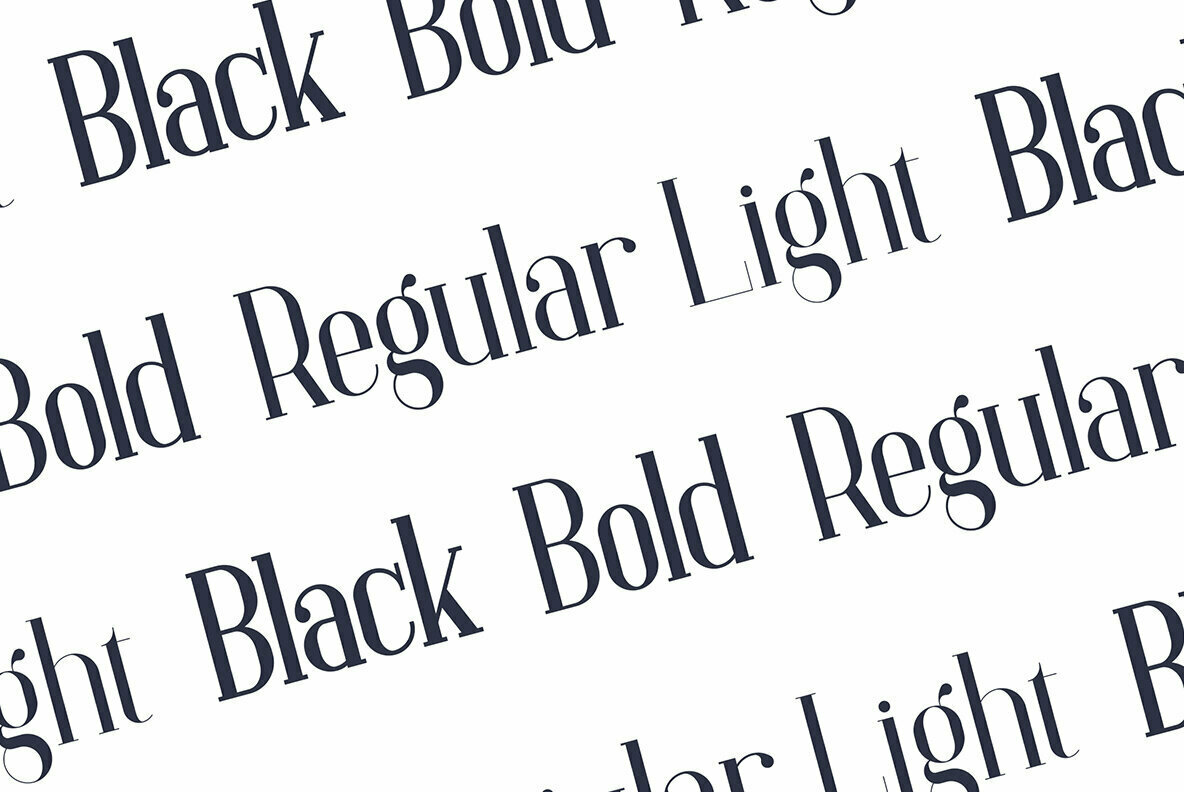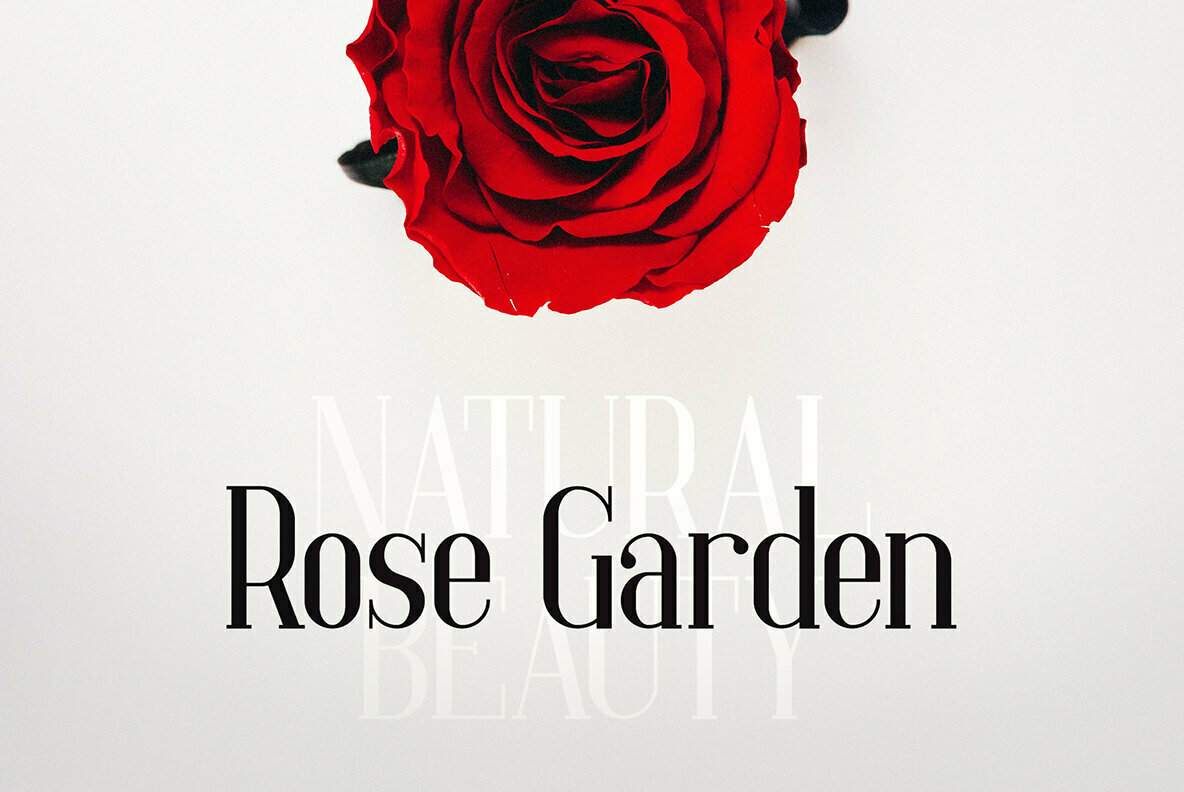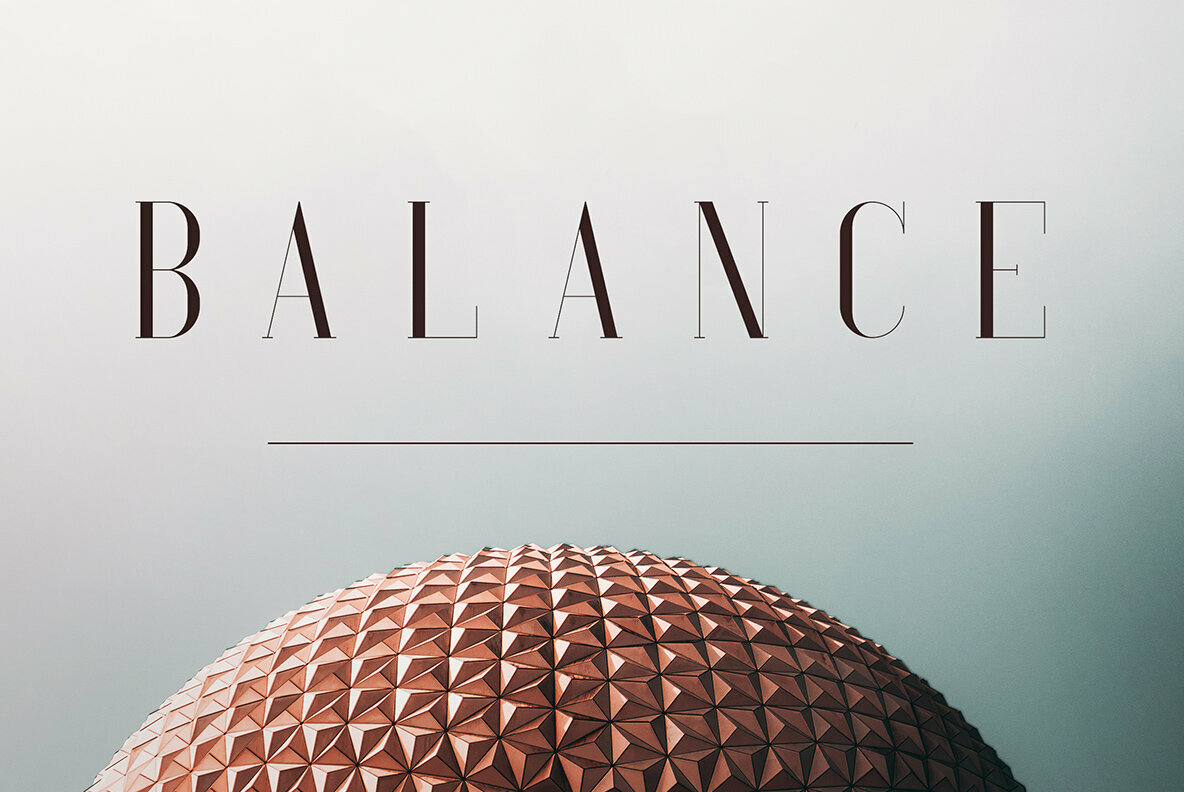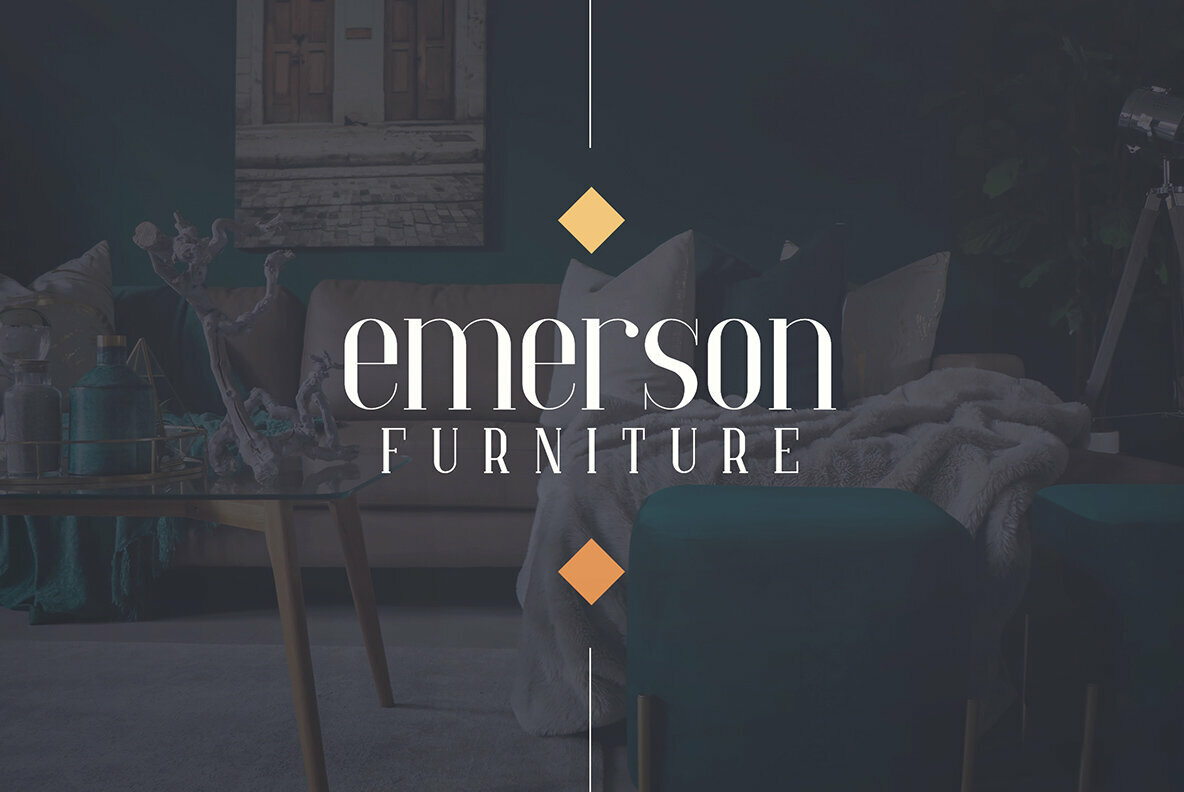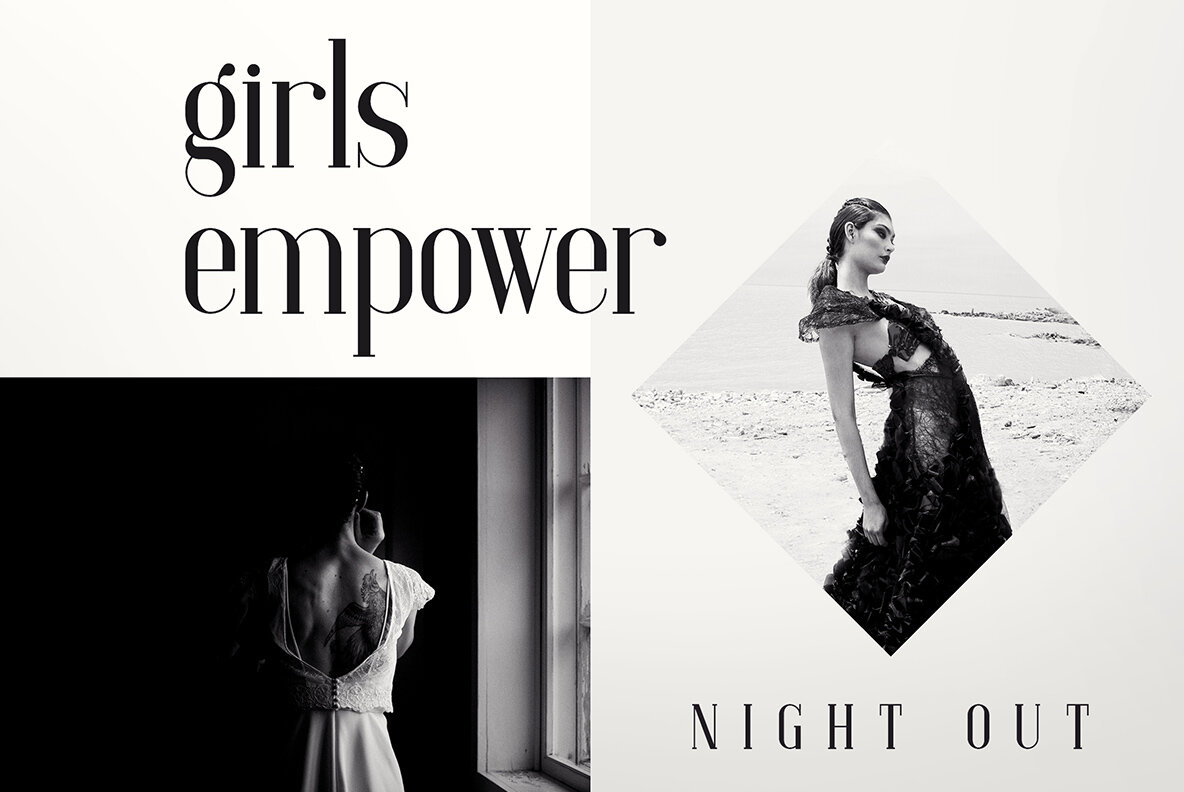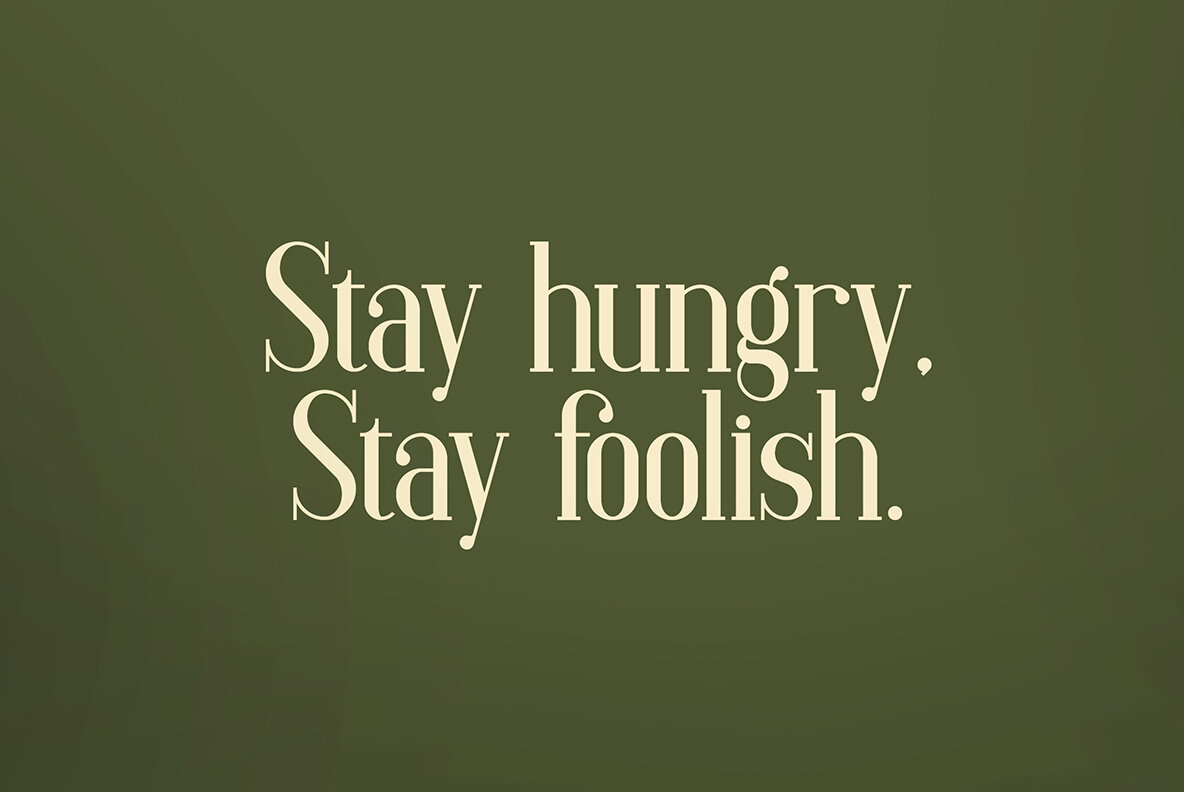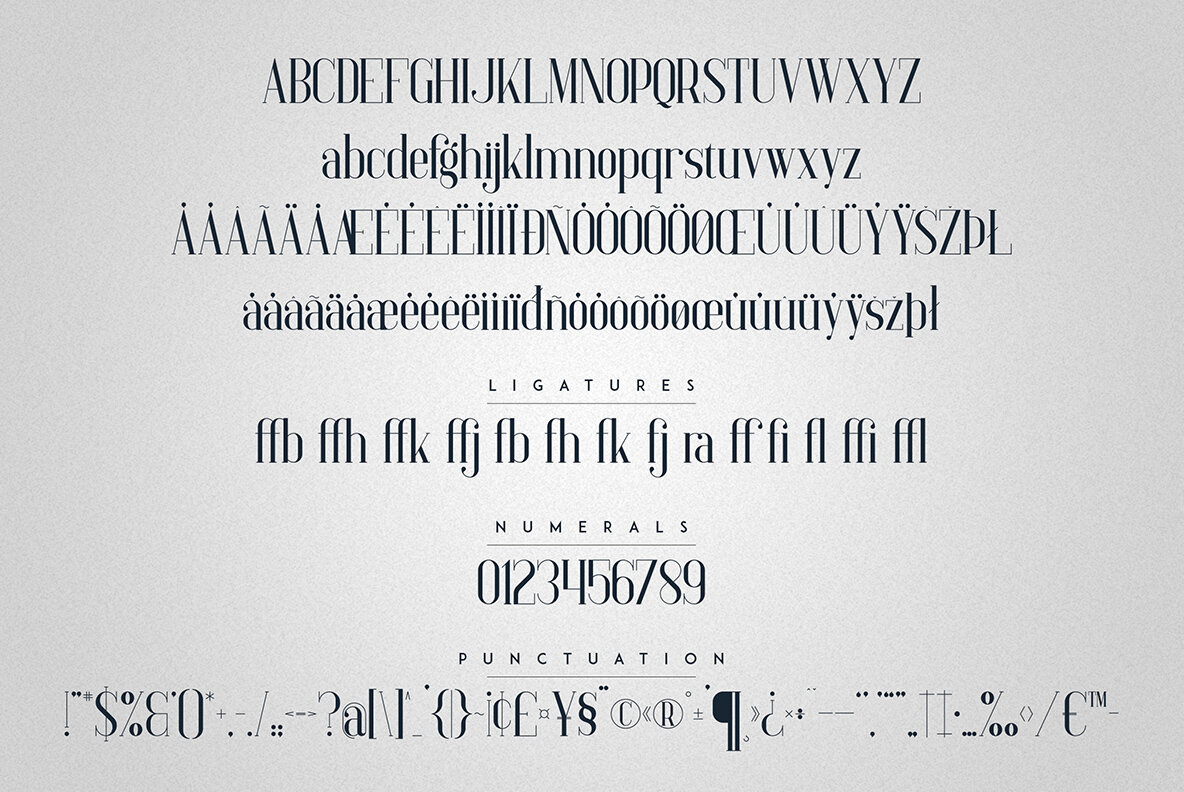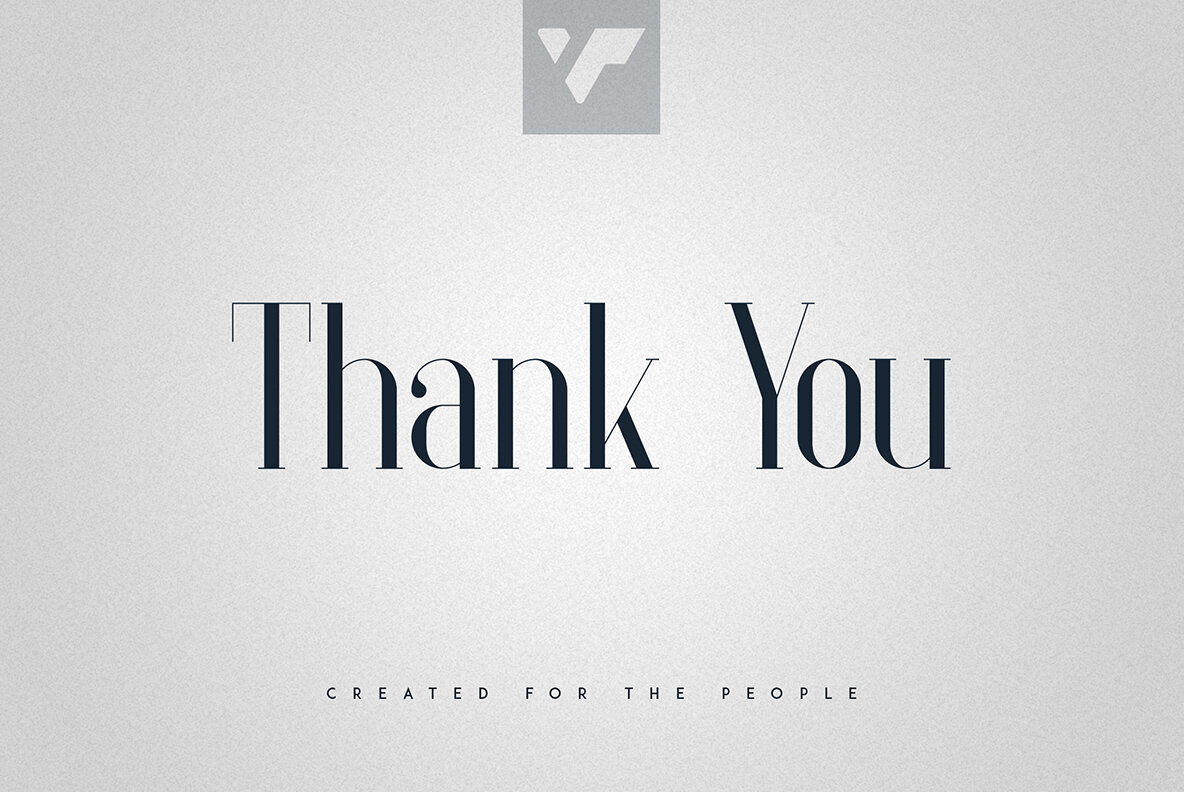
Baleine Font
Baleine is an exquisite font that marries the charm of vintage aesthetics with contemporary versatility. Available in four distinct weights, Baleine offers a spectrum of applications suitable for both large and small formats. With its elegant strokes and careful design, this typeface proves itself a reliable choice for diverse design projects. Perfect for enhancing the allure of branding initiatives, adding sophistication to home-ware designs, and elevating the visual impact of product packaging, Baleine also shines as a decorative element for magazine headings and dynamic text overlays. Its multifaceted nature ensures seamless integration into various creative endeavors.Baleine: A Vintage Typeface with Timeless Elegance